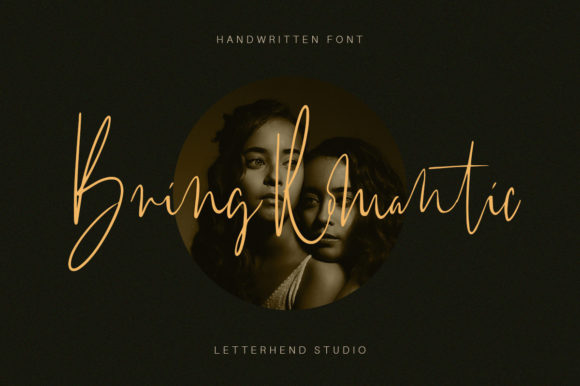
Bring Romantic Font
Bring Romantic is a thin lettered and stylish script font. Fall for its ravishing style and use it to create gorgeous wedding invitations, beautiful stationary art, eye-catching social media posts, and much more!